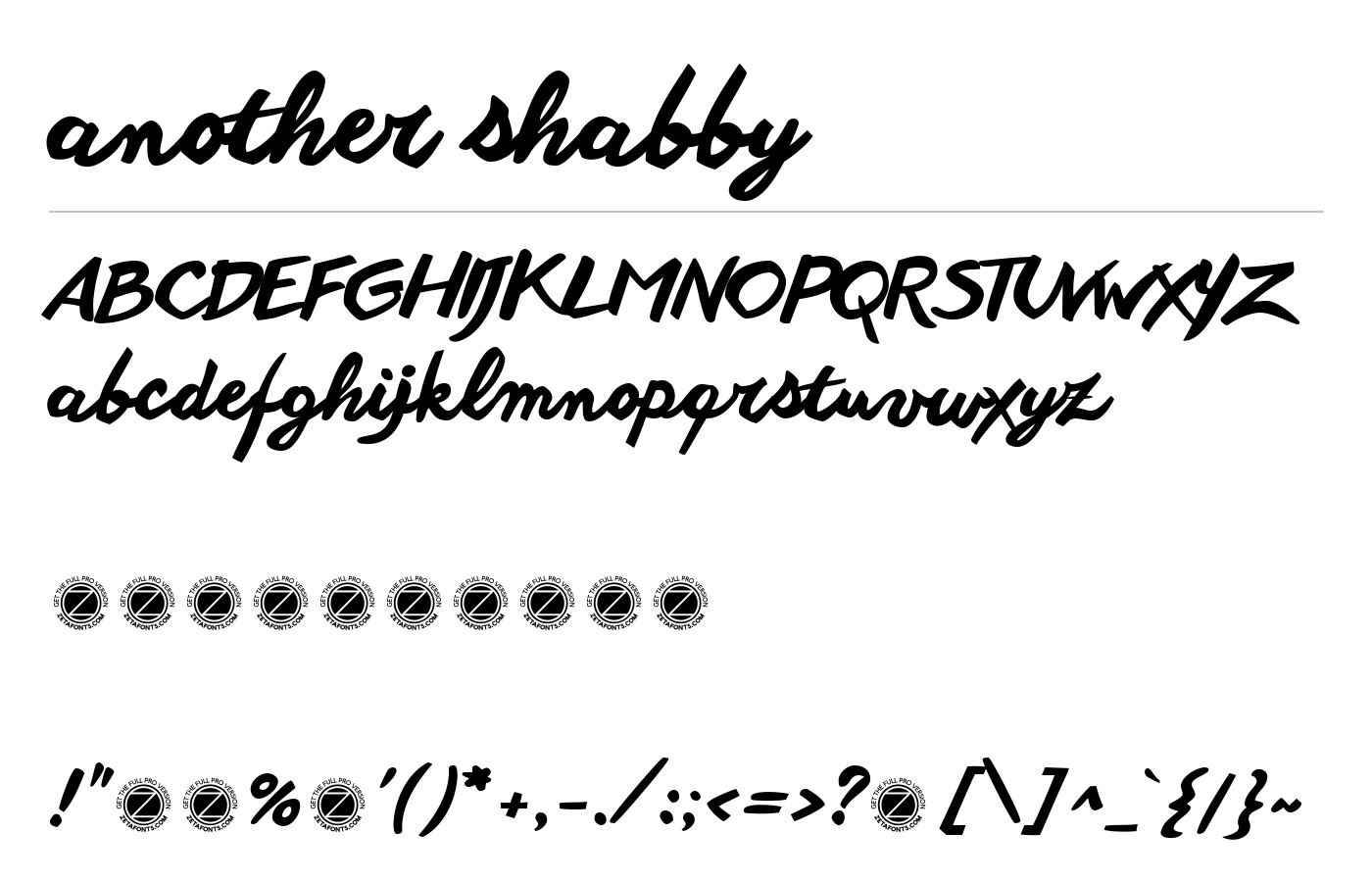
Another Shabby is a bold, energetic script font with a casual handwritten feel. Its slightly rough, uneven strokes and lively letterforms give it a playful, informal personality, making it perfect for creative projects, branding that wants a personal touch, or any design seeking a relaxed, approachable vibe.
another shabby Font
About another shabby Font
| Designer | Francesco Canovaro |